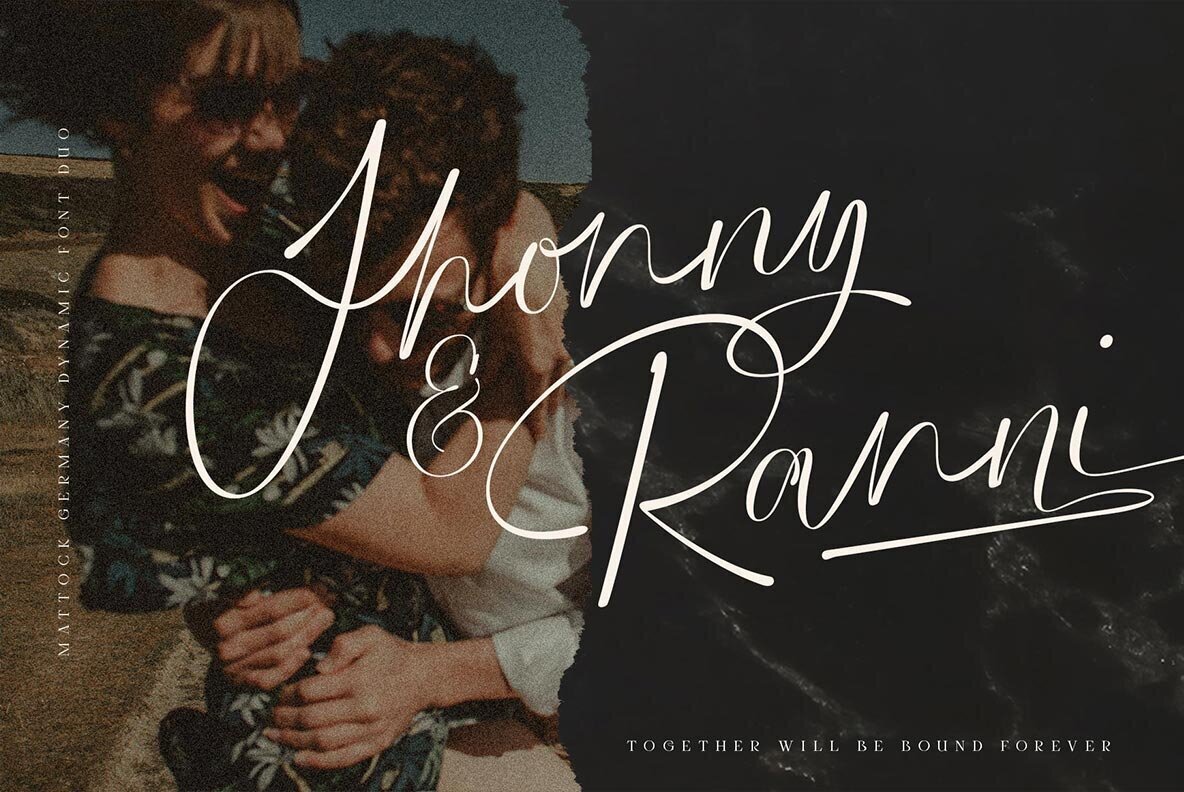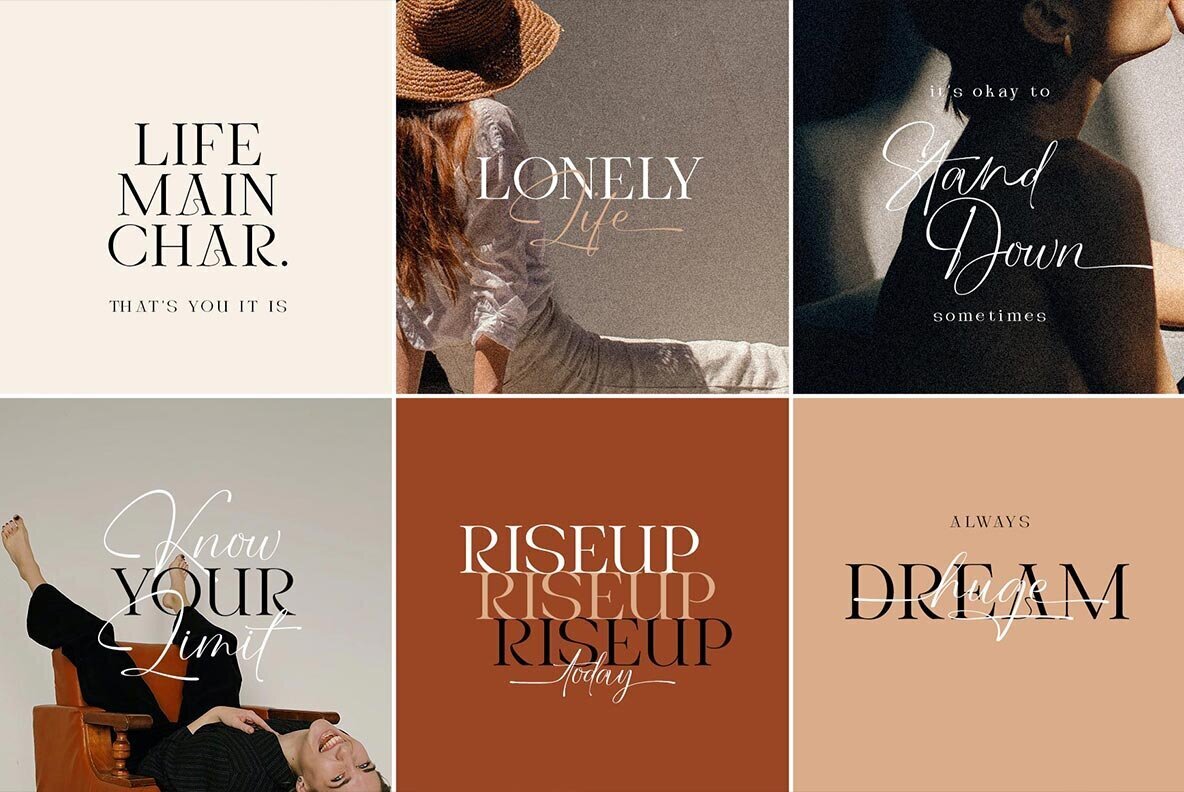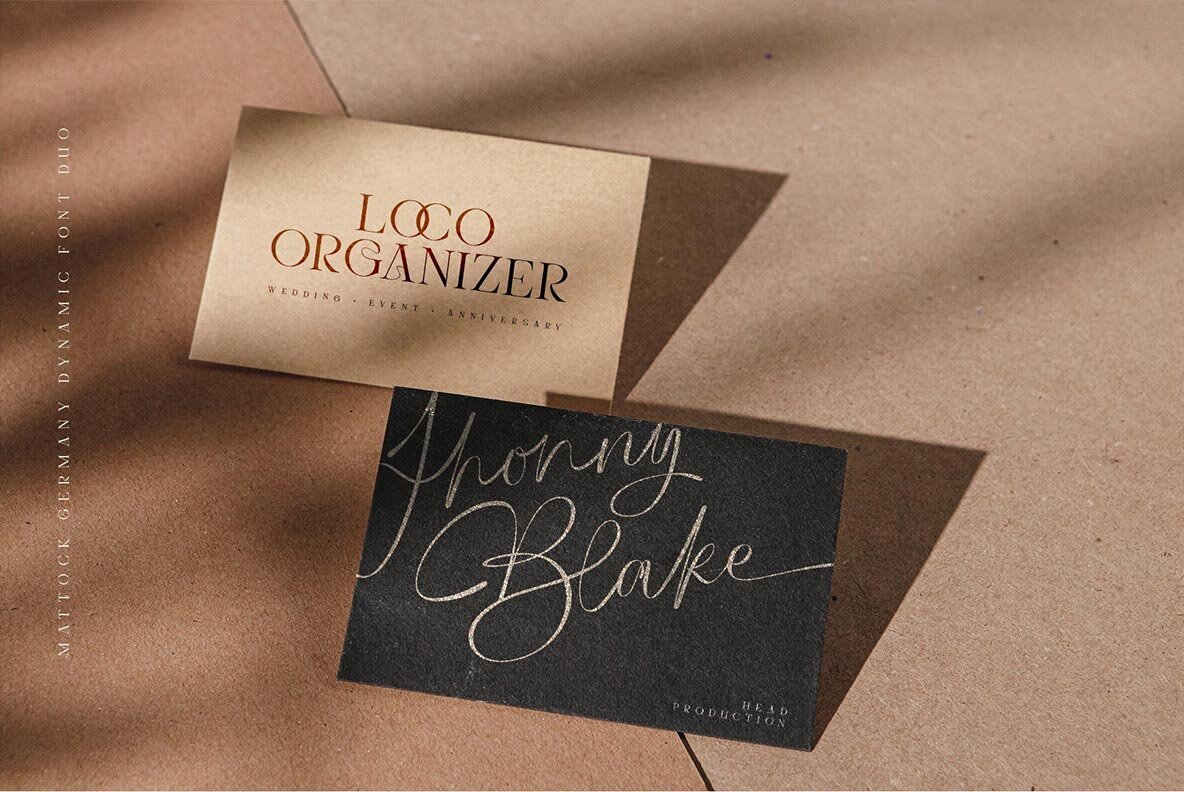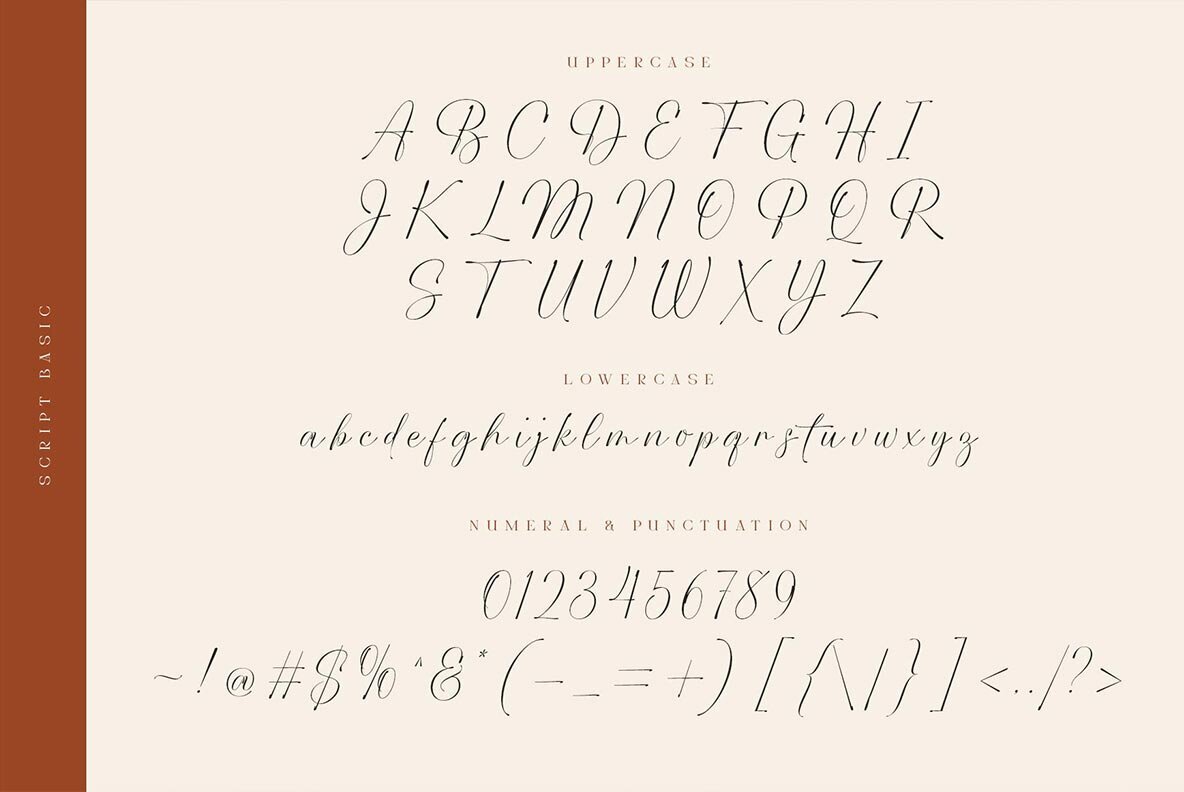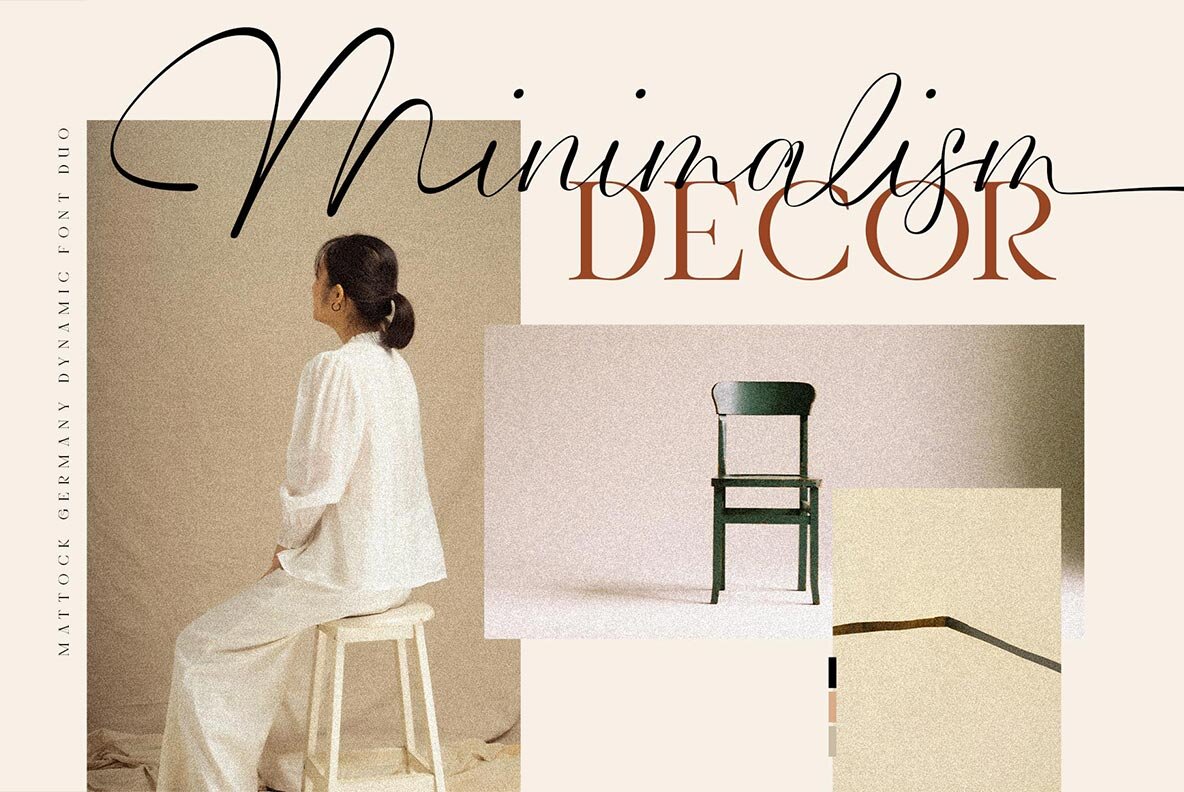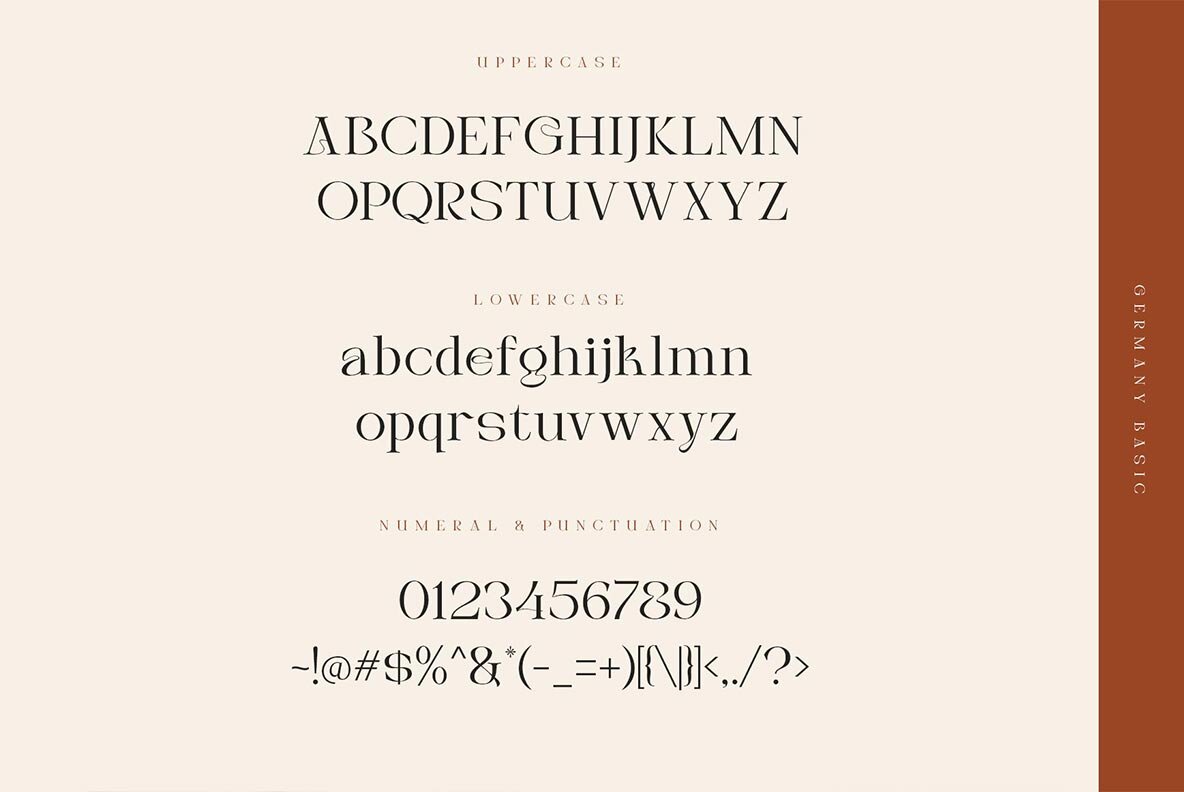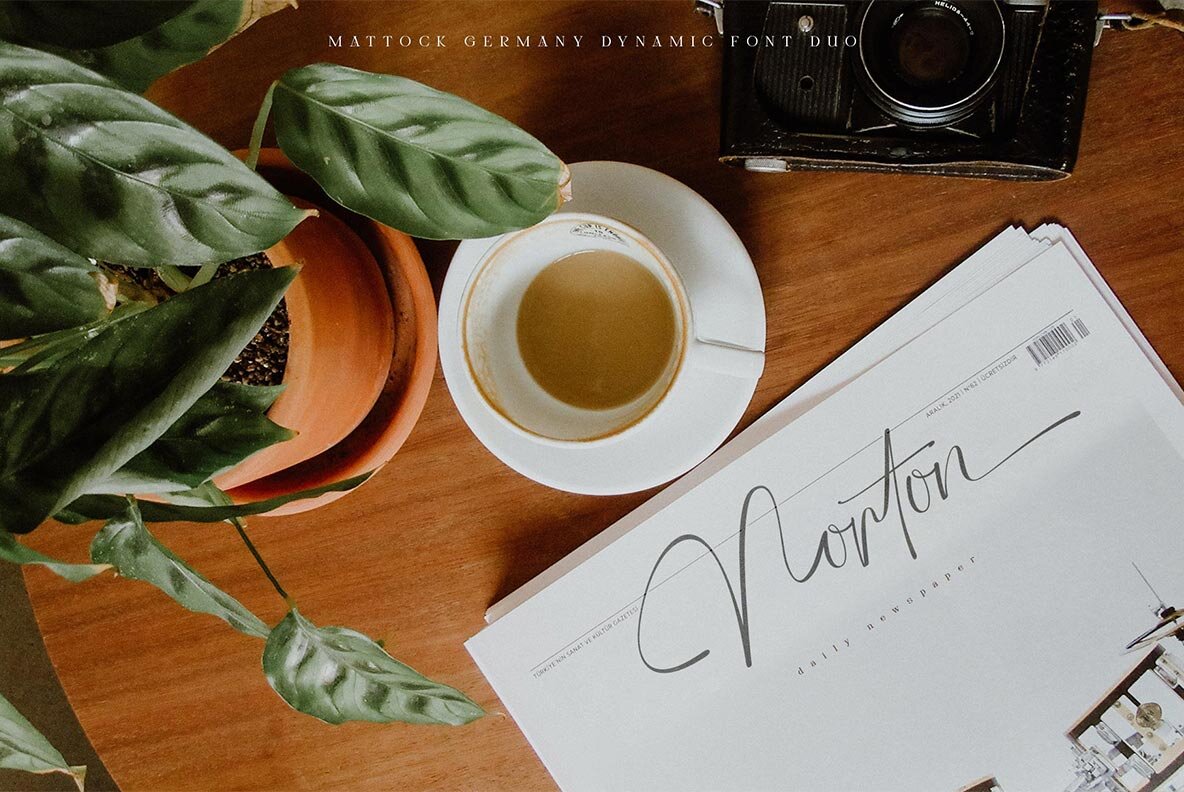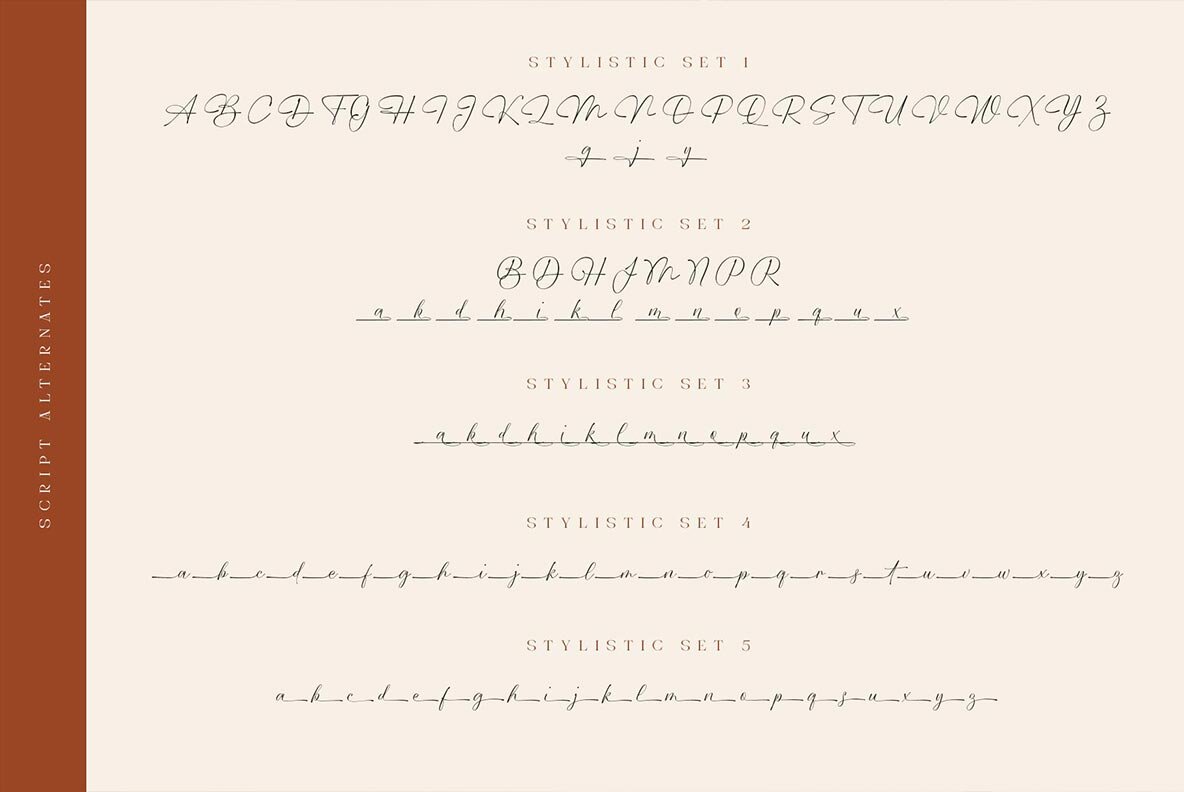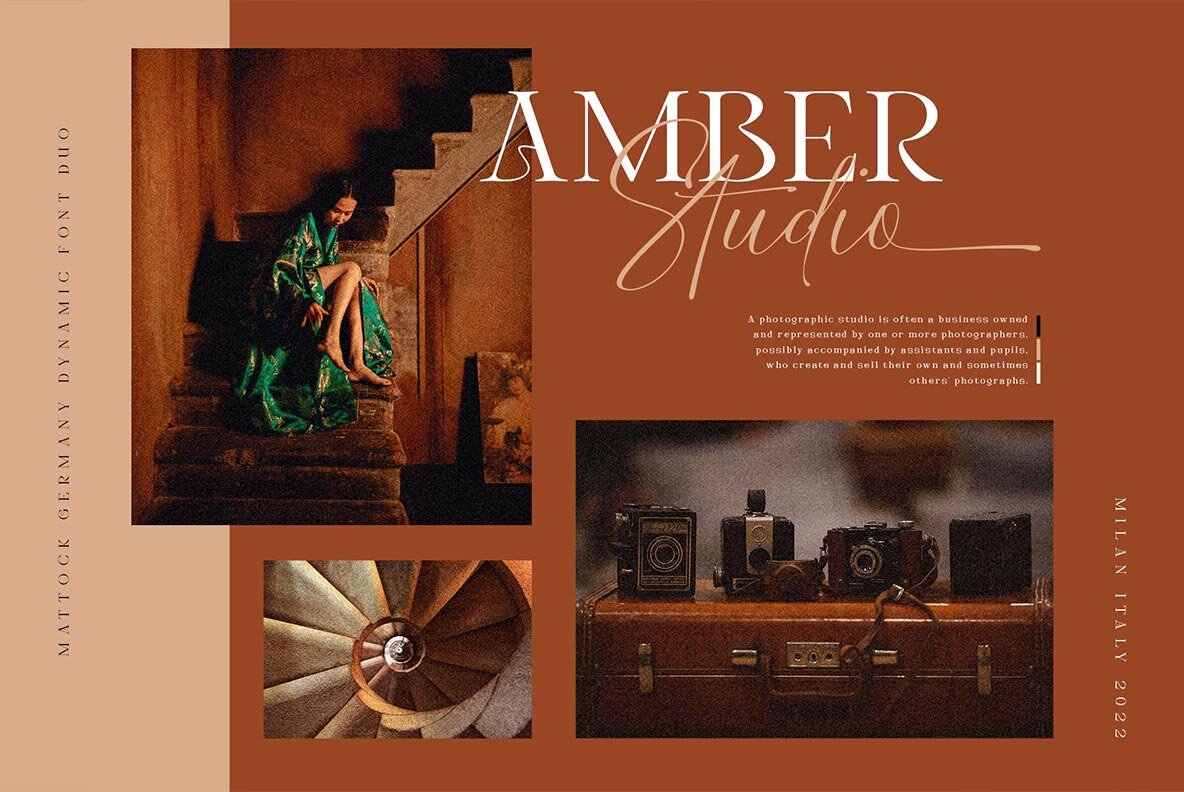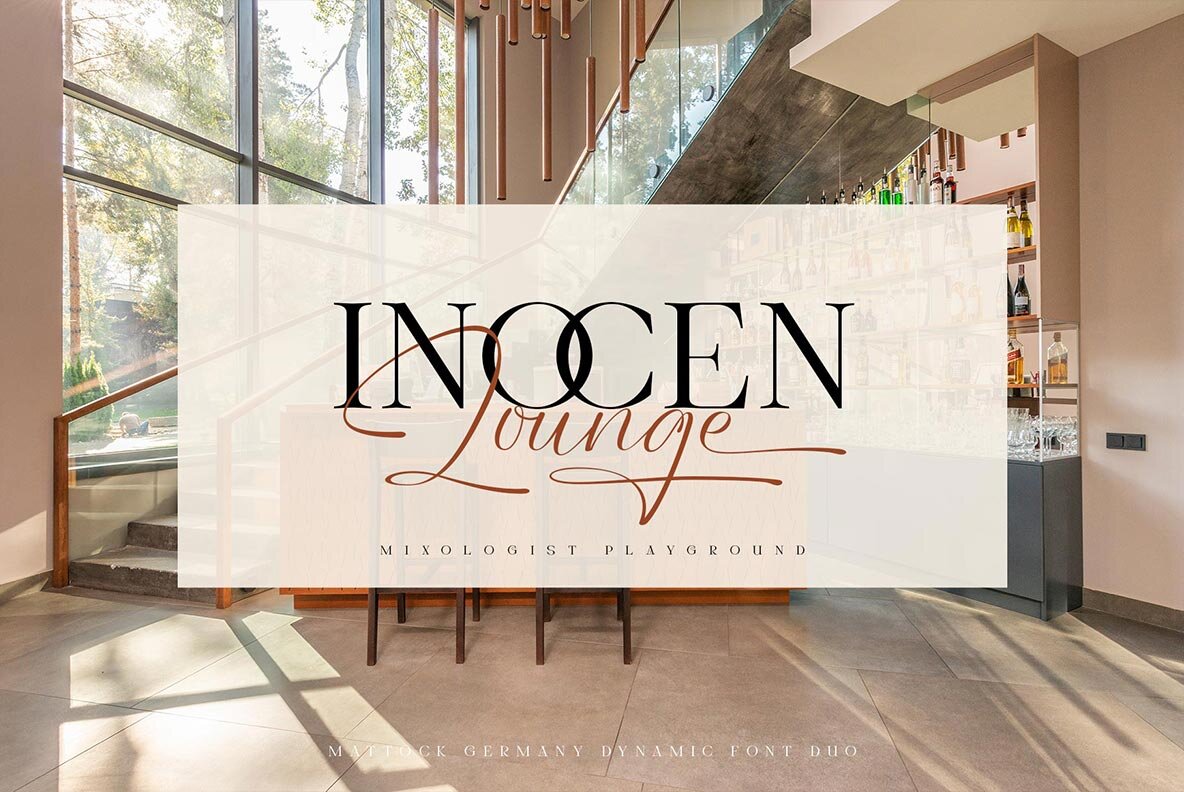
Mattock Germany Font Duo
Germany Regular
Mattock Regular
Give your designs an authentic, organic vibe with the Mattock Germany font family. Inspired by ink textures and signature strokes that bring it to life--the typeface is unique while still being charming enough so you can easily spot what's written or designed using this pairing!
The Mattock Germany duo font contains 769 + 569 glyphs with many unique and interesting alternative options.